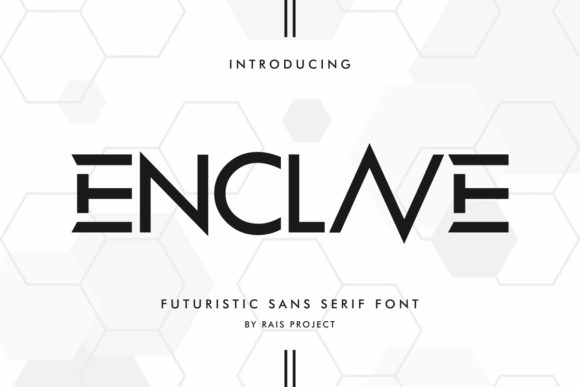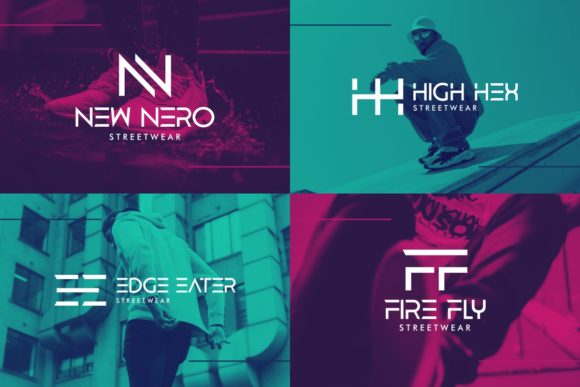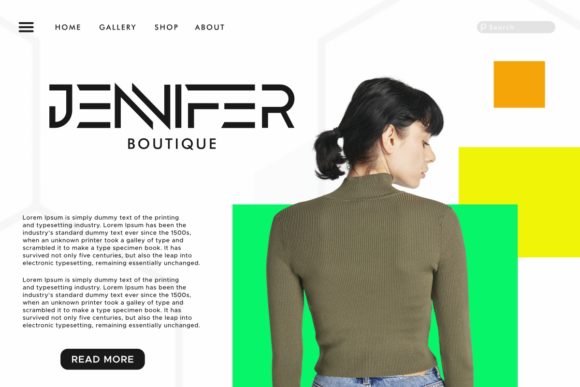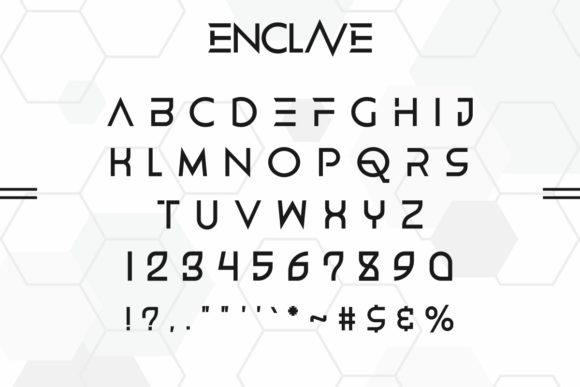
Enclave Font: A Modern Sans Serif for Futuristic Logo Design
About the Enclave Font
Discover the charm of Enclave Font. This font is a perfect blend of modern aesthetics and classic appeal. Enclave is a cool and futuristic sans serif font. This font would be ideal for writing web designs, business cards, or pretty much anything else that requires a unique touch.
Enclave’s strong geometric forms and clean lines make it exceptionally well-suited for headlines, logos, and short, impactful text in branding materials and posters. Its futuristic feel lends itself to technology-related projects and modern, minimalist designs. However, its condensed nature and relatively high x-height mean it’s less effective for body text or extended reading. Avoid using it for lengthy paragraphs or UI elements where readability is paramount.
Pairing Enclave successfully depends on the desired effect. For a bold, high-contrast look, consider pairing it with a classic serif like Garamond or a geometric sans-serif like Futura. To soften its futuristic edge and create a more approachable feel, a rounded sans-serif like Lato or a script font like Great Vibes would be suitable.
Enclave projects a confident, modern, and slightly edgy personality. It’s ideal for brands that wish to communicate innovation, sophistication, and a forward-thinking approach. Avoid using it for projects requiring a friendly or playful tone.
Enclave Font Usage Examples
Enclave Font Example